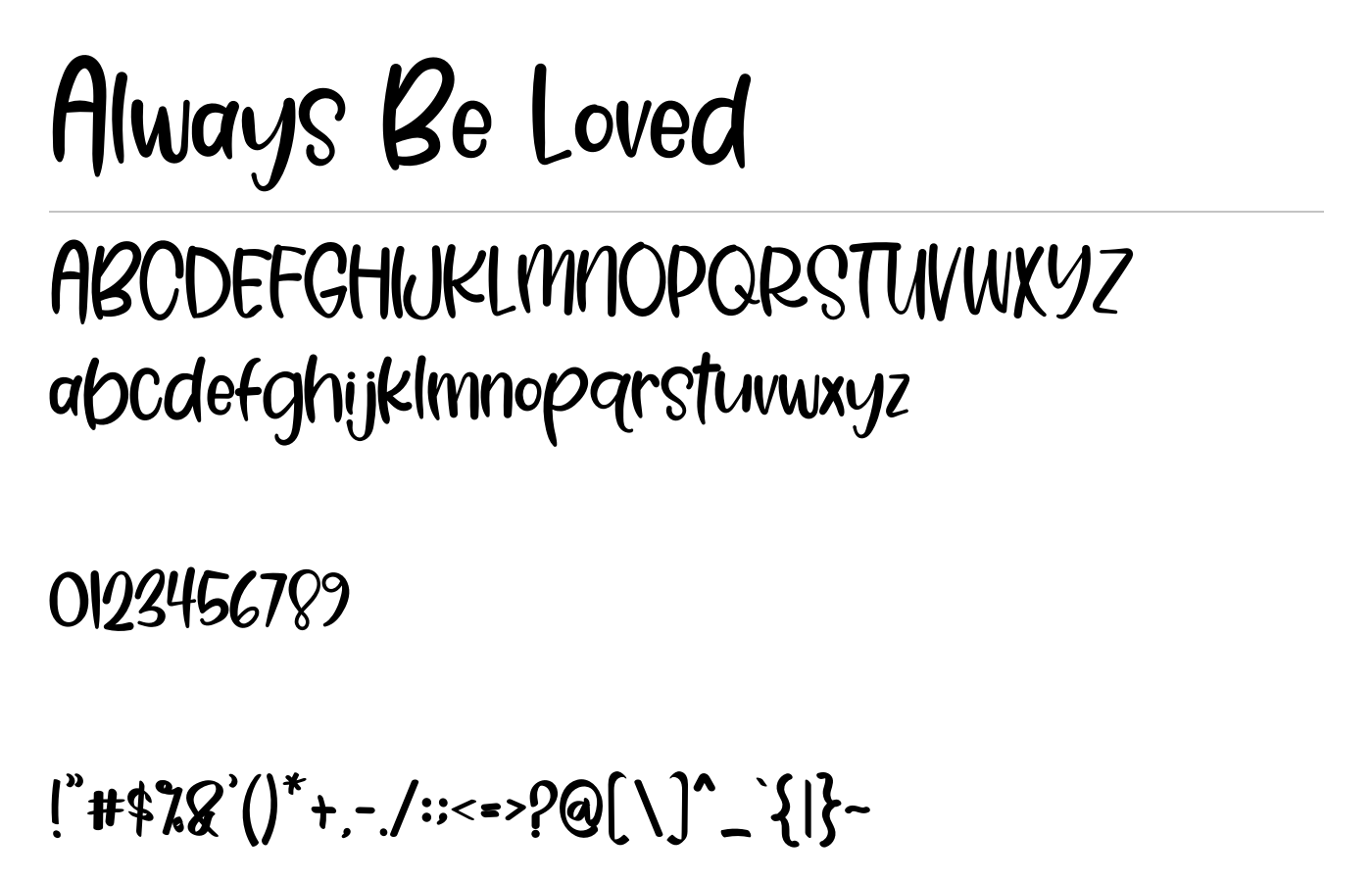
Always Be Loved is a playful and casual handwritten sans serif font with a friendly, organic feel. Its smooth, rounded strokes and tall x-height make it highly readable while conveying warmth and approachability, perfect for creative projects, branding, and social media. This font works well in headlines and informal designs where a personal, cheerful touch is desired.
Always Be Loved Font
About Always Be Loved Font